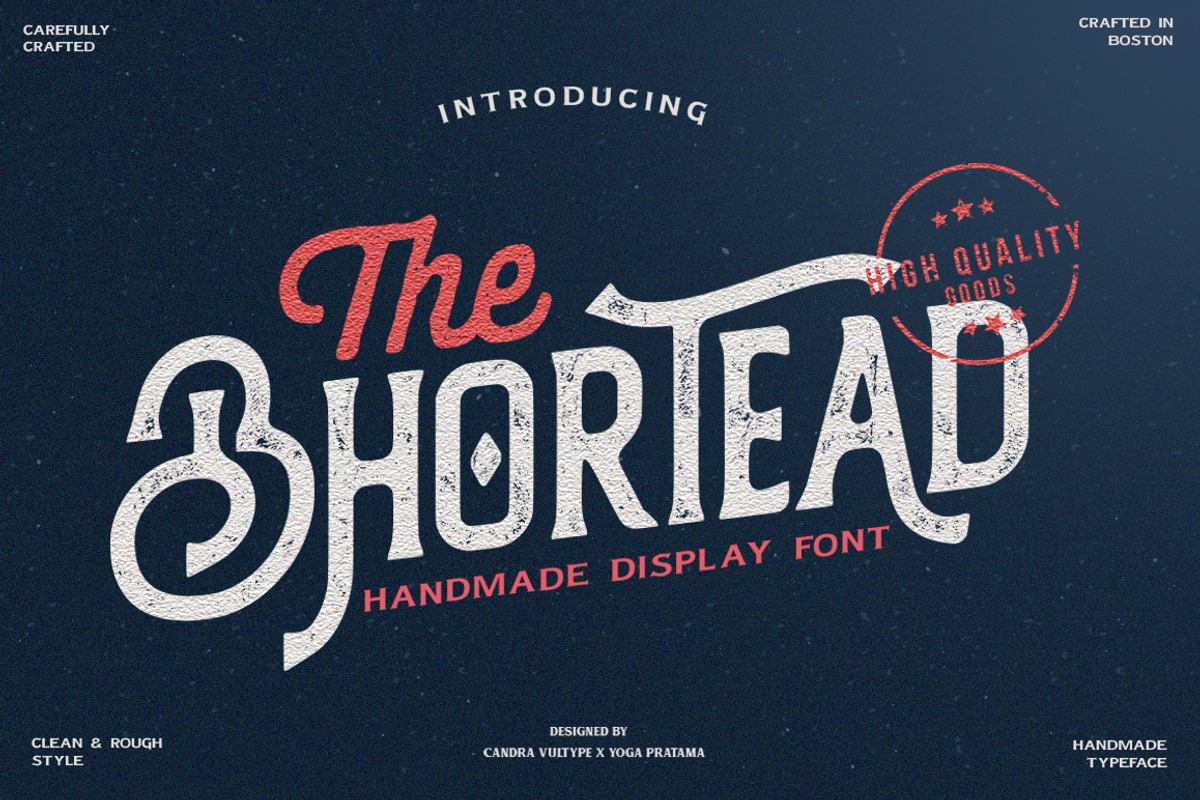
The Bhortead - Vintage Stamp Font Free Download
The Bhortead – Vintage Stamp Font Free Download
The Bhortead – Vintage Stamp Font Free Download is a rugged and bold display typeface inspired by classic rubber stamps and old-school letterpress printing. With its distressed texture and strong character, this font is perfect for retro branding, badges, packaging, posters, apparel, and anything that needs an authentic vintage vibe with a handcrafted feel.
The Bhortead – Vintage Stamp Font Free Download brings a sense of nostalgia and grit to your designs, featuring rough edges and an imperfect finish that mimics real ink stamps. It’s especially great for vintage logos, rustic labels, and adventurous outdoor-themed graphics.